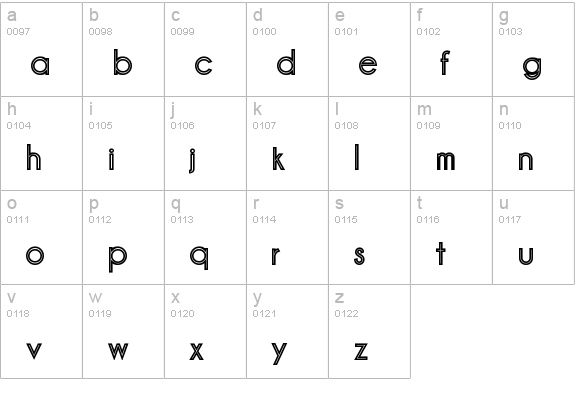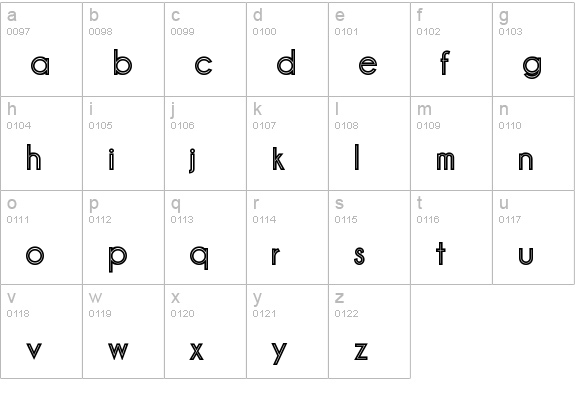
Pinstripe Limo font is an elegant and sophisticated typeface that exudes luxury and refinement. With its sleek and slender design, this font captures the essence of high-class and exclusivity. The Pinstripe Limo font is meticulously crafted with attention to detail, featuring thin, clean lines that create a sense of elegance and class. Its tall and elongated letterforms give it a distinct and timeless appeal, making it perfect for a wide range of design projects. This font is perfect for creating eye-catching logos, signage, invitations, and more. Its versatility allows it to be used in both formal and informal settings, adding a touch of sophistication to any design. What sets Pinstripe Limo font apart is that it is available for free download at FontsMarket.com. This means that designers and enthusiasts alike can access this stunning font without any cost, making it a valuable addition to any font collection. Whether you're designing for a high-end event, a luxury brand, or simply want to add a touch of elegance to your designs, Pinstripe Limo font is the perfect choice. Download it for free at FontsMarket.com and elevate your designs to new heights of sophistication and style.